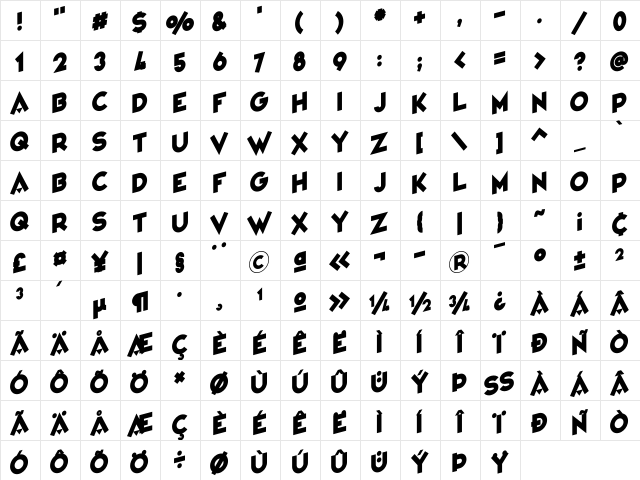
Variet頃abaret Regular
| Foundry | Peter Wiegel |
| Designer | Peter Wiegel |
Design Context for Variet頃abaret Typeface
Variet頃abaret is a composed and adaptable typeface that performs quietly and consistently across a wide range of design contexts.